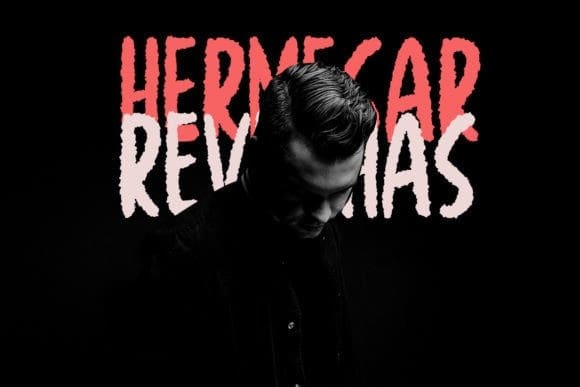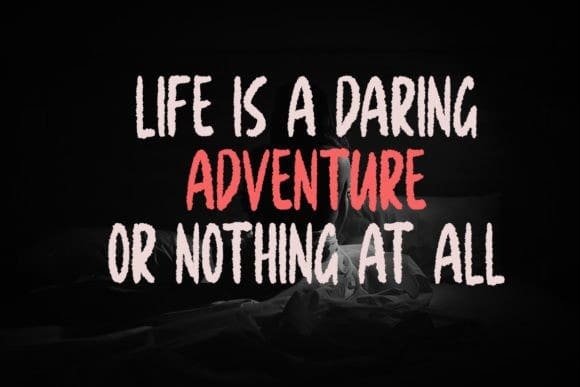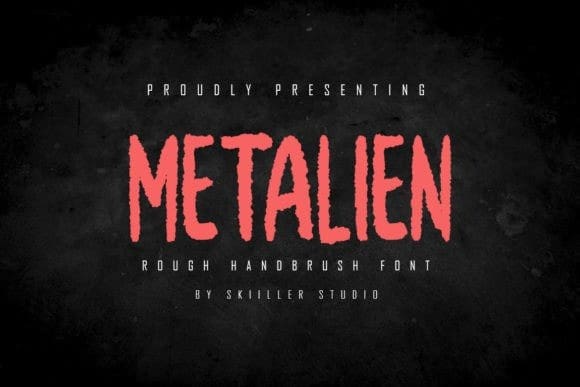
Metalien Display Font
Metalien Display Font is a textured brush display font featuring paint scratches and an original brush style. It is suitable for film or commercial needs, business cards, branding materials, or other projects to support your business.